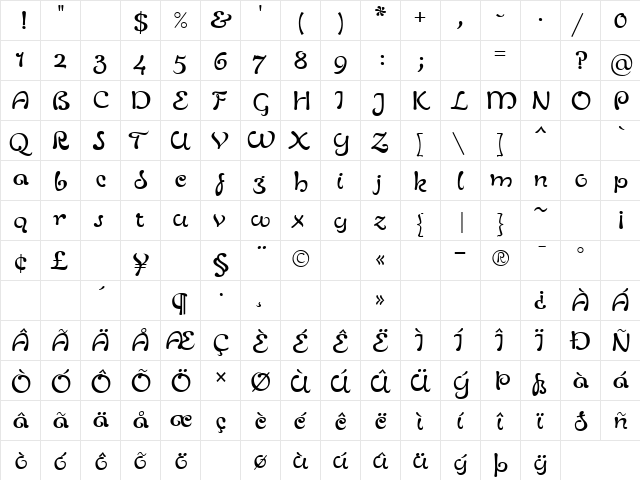
LinotypeZurpreis SemiBold
Design Context for LinotypeZurpreis Typeface
LinotypeZurpreis is a composed and adaptable typeface that performs quietly and consistently across a wide range of design contexts. The heavy weight commands attention and anchors typographic hierarchies.